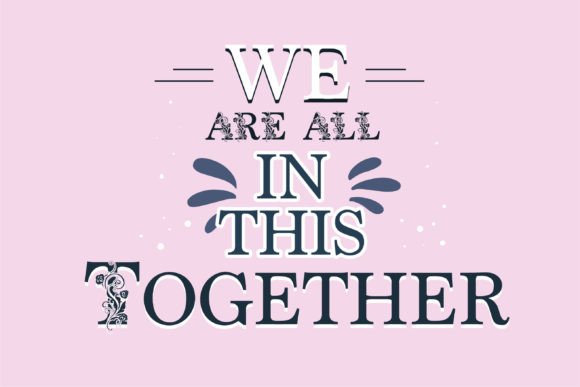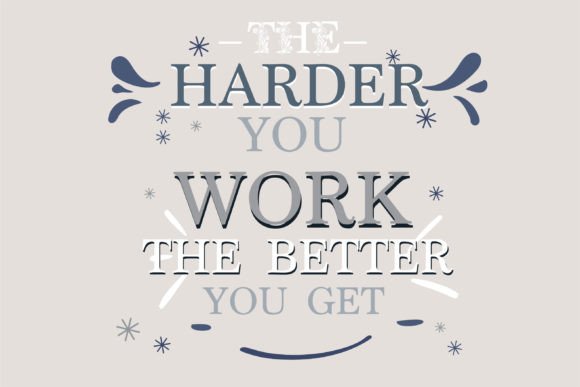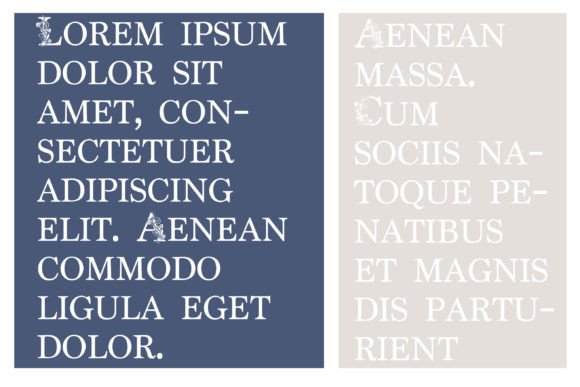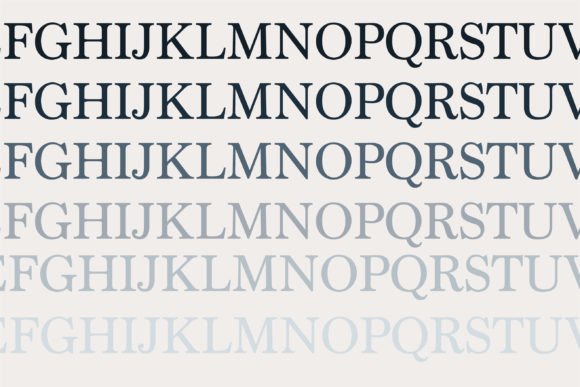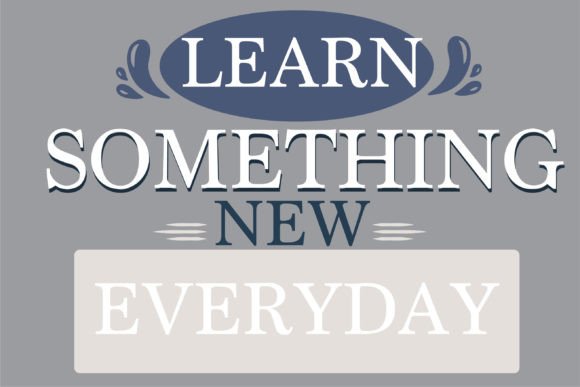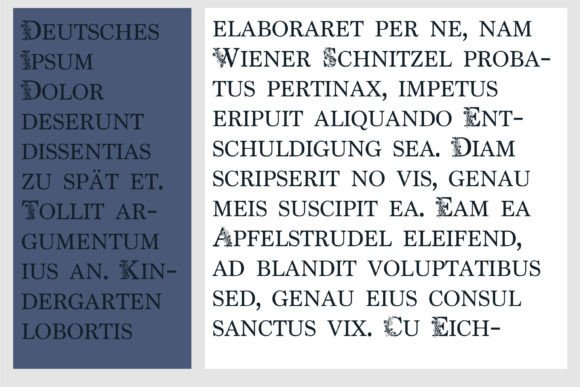
Bijoux Bloom Font: Elevate Your Designs with Elegant Serif Decorative Flair
Are you on the hunt for a font that adds a touch of sophistication and whimsy to your design projects? Look no further than the Bijoux Bloom Font. This pretty serif decorative font features a flourished, floral uppercase that is sure to elevate your creations and leave a lasting impression. In this article, we’ll dive into the world of Bijoux Bloom Font, exploring its unique characteristics, uses, and benefits for designers and crafters alike.
What is Bijoux Bloom Font?
Bijoux Bloom Font is a beautiful serif decorative font that boasts a unique, hand-crafted design. Its flourished, floral uppercase letters are perfect for adding a touch of elegance and sophistication to any design project. Whether you’re working on a logo, monogram, or simply want to add some flair to your text, Bijoux Bloom Font is an excellent choice.
Key Features of Bijoux Bloom Font
- Flourished, floral uppercase letters: The standout feature of Bijoux Bloom Font is its stunning, hand-crafted uppercase letters. Each letter is adorned with intricate floral flourishes, adding a touch of whimsy and sophistication to your designs.
- Serif decorative font: Bijoux Bloom Font is a serif font, which means it features small lines or flourishes at the ends of the letters. This gives the font a classic, elegant feel that’s perfect for designs that require a touch of sophistication.
- Perfect for monograms: The unique, hand-crafted design of Bijoux Bloom Font makes it an excellent choice for monograms. Whether you’re creating a custom logo or simply want to add a personal touch to your designs, this font is sure to impress.
Benefits of Using Bijoux Bloom Font
So why choose Bijoux Bloom Font for your design projects? Here are just a few benefits of using this beautiful font:
- Adds elegance and sophistication: The flourished, floral design of Bijoux Bloom Font adds a touch of elegance and sophistication to any design project. Whether you’re working on a logo, brochure, or website, this font is sure to elevate your creations.
- Perfect for creative projects: Bijoux Bloom Font is a versatile font that can be used on a wide range of creative projects, from crafting and scrapbooking to graphic design and digital art.
How to Use Bijoux Bloom Font in Your Designs
Ready to start using Bijoux Bloom Font in your designs? Here are a few tips to get you started:
- Use it for monograms and logos: The unique design of Bijoux Bloom Font makes it perfect for monograms and logos. Try pairing it with a simpler font for a striking contrast.
- Add it to your digital art: Bijoux Bloom Font is a great addition to any digital art project. Try using it to add text to your illustrations or graphics.
- Experiment with different colors and textures: The beauty of Bijoux Bloom Font is that it can be used in a wide range of design projects. Experiment with different colors and textures to find the perfect look for your creations.